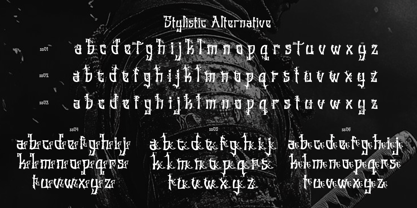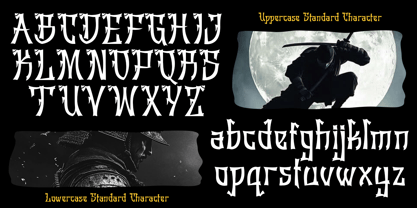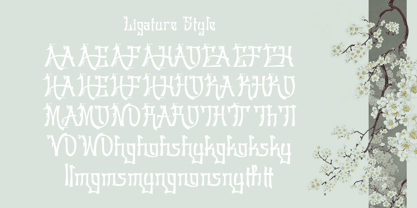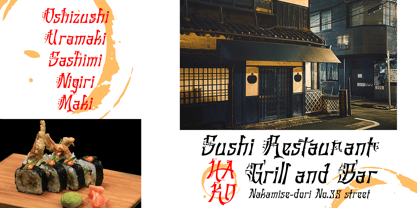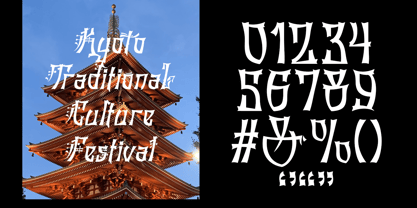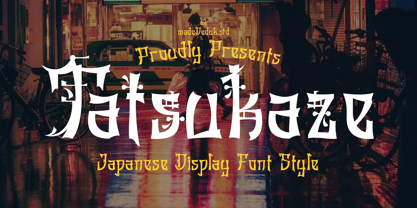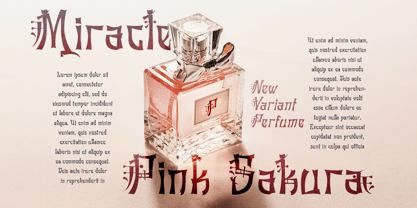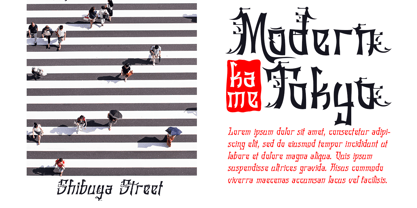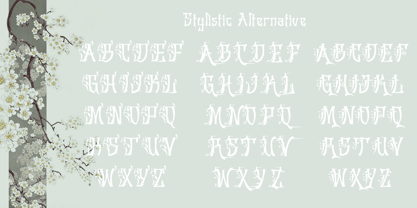
Tatsukaze
The Tatsukaze Font Family was designed by madededuk and published by madeDeduk. Tatsukaze contains 2 styles and family package options. More about this family
Introducing Tatsukaze display Japanese font, artistic characters, combining a classic feel with a touch of elegant Japanese aesthetics. The letterforms are sharp, decorative, and richly detailed, creating a dramatic and distinctive look. Each curve of the letterform feels like a vibrant calligraphic stroke, creating a unique and expressive visual feel. This font is suitable for logos, poster titles, creative designs, and visual works themed around fantasy and Japanese culture. Visually, this font combines strength and refinement, creating a bold yet aesthetically pleasing typographic identity. The pointed lettertips create a dynamic and modern feel, while the composition of the shapes maintains a classic, artistic feel. This font evokes a strong and imaginative creative atmosphere, making it ideal for branding, editorial design, and visual projects.